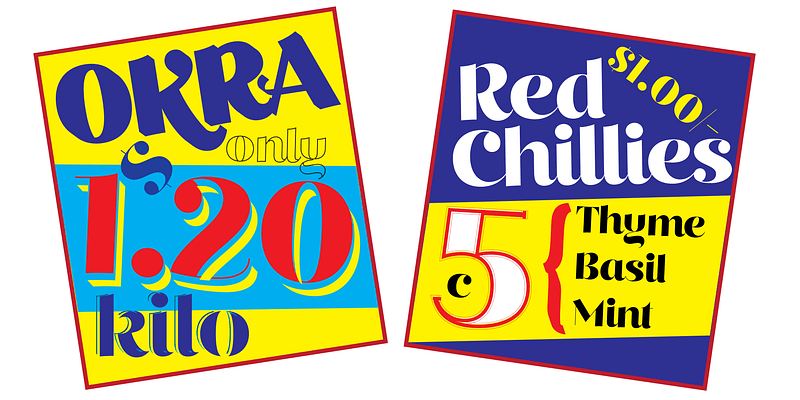
Juicy Font Free Download
Juicy Font Free Download is a bold and playful display typeface with a fun, bubbly character that is perfect for eye-catching designs. Its rounded edges and vibrant feel make it ideal for children's products, playful branding, social media posts, event flyers, and anything that needs a cheerful and energetic vibe.